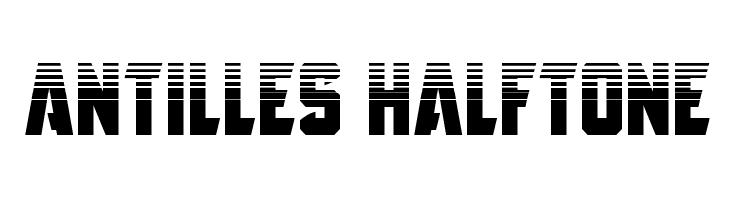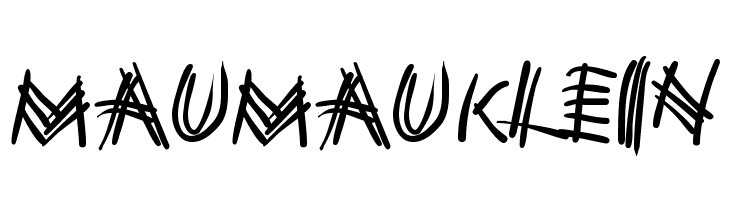
A bold, tribal-inspired font with sharp, angular strokes and a dynamic, hand-drawn appearance.
A playful, comic-style font with bold, outlined characters and a hand-drawn look.
A sophisticated script font with elegant, flowing cursive strokes.
Bold, playful font with stars inside circles.
A bold, 3D font with strong shadow effects, perfect for impactful designs.
A playful, hand-drawn outlined font with a whimsical and casual style.
A classic serif font with sharp, angular serifs and a refined, elegant style.
A bold, decorative font with a unique horizontal striped pattern.
A bold, playful font with a dynamic, comic-inspired style.
An expressive, hand-drawn font with dynamic and erratic strokes.